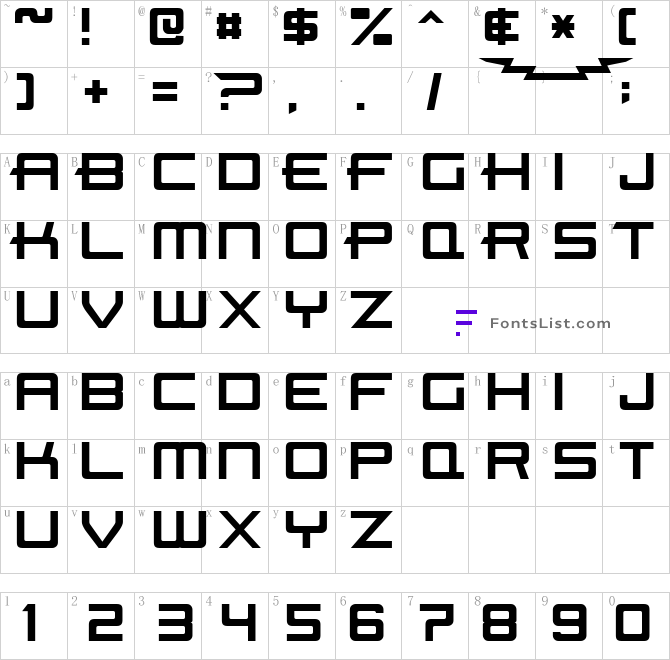
- Font Name:Beast Machines
Beast-Machines-Normal-copy-4-.ttf is a very beautiful artistic font, Beast-Machines-Normal-copy-4-.ttf is widely used in the design and printing of various books and pictures,Beast-Machines-Normal-copy-4-.ttf has a strong visual impact,Beast-Machines-Normal-copy-4-.ttf is a commonly used font in newspapers, magazines and books, and is used in posters, e-commerce Poster design, store design, logo design, font design and other fields.Beast-Machines-Normal-copy-4-.